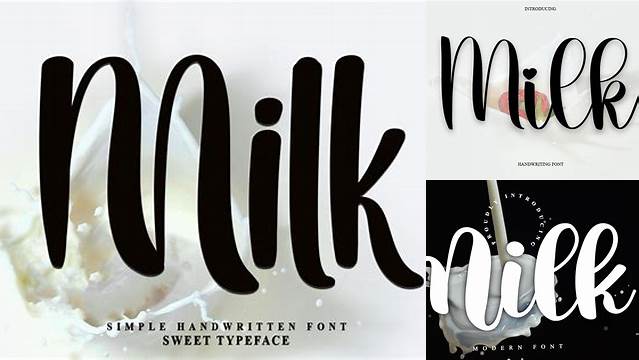
Looking for a touch of elegance and personality in your designs? Milk Cursive Font is a beautiful choice! This guide offers everything you need to know about Milk Cursive Font, including how to get it for free, how to use it effectively, and inspiration for your projects. Get ready to dive into the world of flowing lines and stylish script!
Milk Cursive Font: What Makes It Special?
Alright, guys, let's talk about what makes the Milk Cursive Font so darn special. It's not just another font; it's a statement. It's got this undeniable charm, that's hard to resist. The design is a modern script typeface with a playful yet sophisticated vibe. Imagine your text flowing across the page like a gentle stream, each letter connected, creating a seamless and visually appealing look. The font is characterized by its smooth curves, delicate strokes, and a hint of whimsy. The way the letters dance together makes it perfect for a wide range of applications, from wedding invitations to branding materials. It's the kind of font that immediately grabs your attention and makes you want to read more. The attention to detail is also impressive. The designer clearly put a lot of thought into every single curve and connection, ensuring that the overall effect is balanced and harmonious. The legibility is surprisingly good, even in smaller sizes. It's not just about looking pretty; it's about functionality. The Milk Cursive Font manages to be both beautiful and practical. It is a work of art, and you'll be hard-pressed to find a font that offers the same level of elegance and personality. It's a great choice if you want to add a touch of class and sophistication to your project, or you want to create a design that is both beautiful and memorable. The subtle details and the overall design make it a font that stands out from the crowd. With all the characteristics it has, make it the ideal choice for anyone seeking to add a touch of sophistication and a personal touch to their designs. Whether you're designing a logo, crafting a wedding invitation, or creating social media graphics, Milk Cursive Font is a perfect fit.
Diving Deeper: The Aesthetics of Milk Cursive
Let's get a little more granular, shall we? When we talk about the aesthetics of the Milk Cursive Font, we're really talking about the experience it creates. It's a visual journey. The flow of the letters, the way they connect, creates a sense of movement. It's not static; it's dynamic. It draws the eye across the page. The curves are soft and inviting, suggesting warmth and approachability. This font is like a warm hug for your text. The delicate strokes add a touch of femininity and grace. It’s a versatile font. The designer has crafted a typeface that balances playfulness with a professional touch, making it suitable for both personal and commercial projects. It has a timeless appeal, it won’t feel dated anytime soon. It has a certain lightness that prevents it from feeling heavy or overwhelming. It's like the perfect accessory that enhances your outfit without overpowering it. It enhances your message and makes it more memorable. The font's design is not just about aesthetics, it's about communication. It makes your message more engaging and conveys a sense of style. It will make your content stand out. Its elegance and charm set it apart from the crowd. Milk Cursive Font is a true testament to the art of typography. It's not just about the letters; it's about the feeling. The way the letters interact with each other, creating a sense of rhythm and harmony. It's a true visual treat. Its aesthetics, along with its great style and design, making it ideal for diverse design projects, especially those that require a touch of elegance and charm. With its soft curves and beautiful strokes, Milk Cursive Font adds a touch of beauty to any design project.